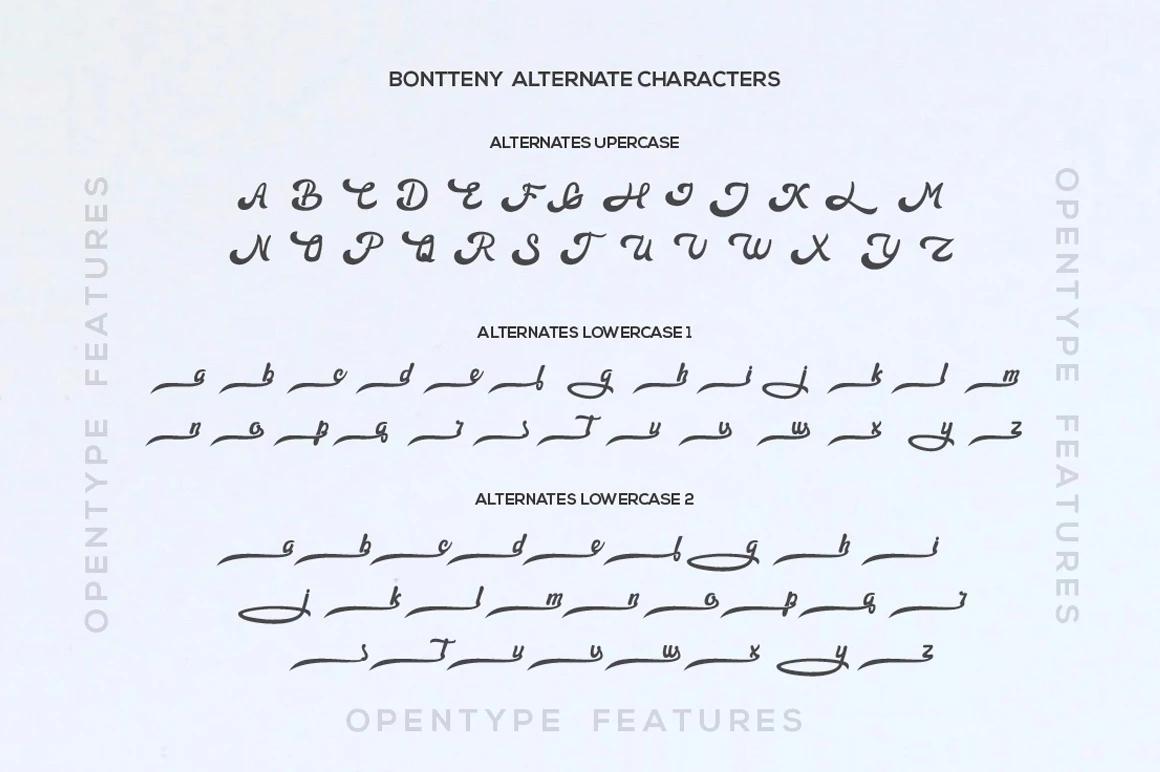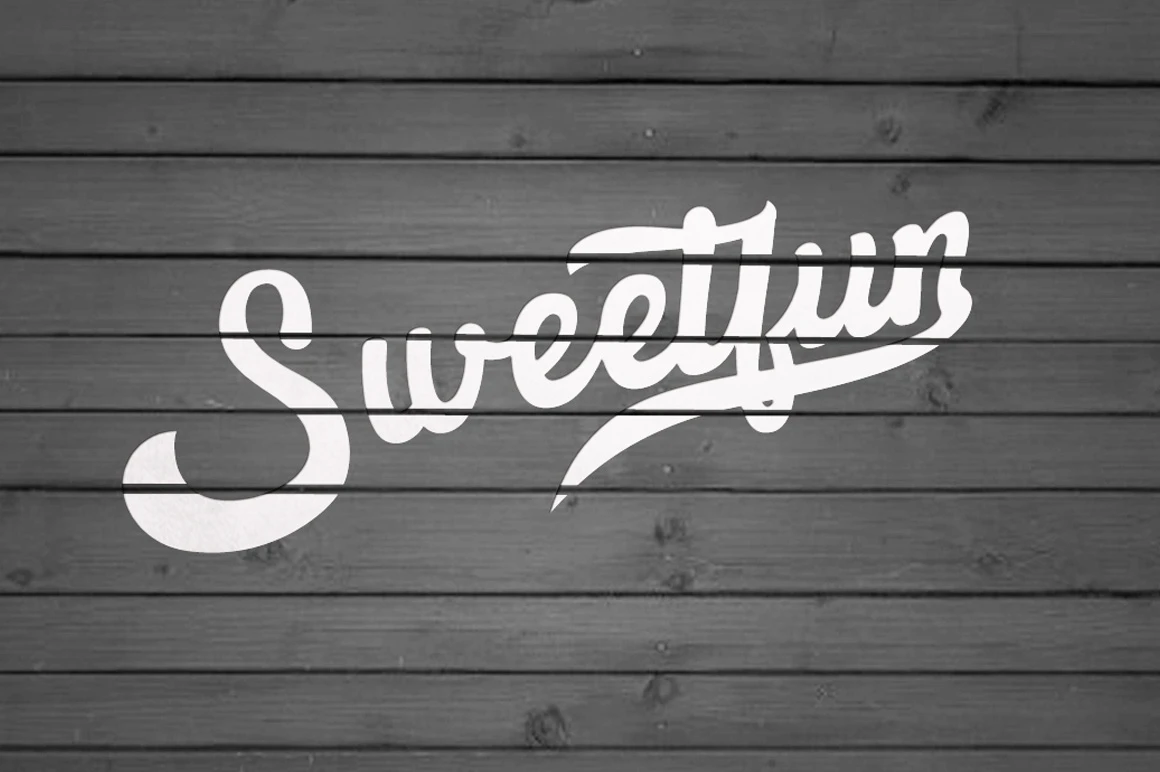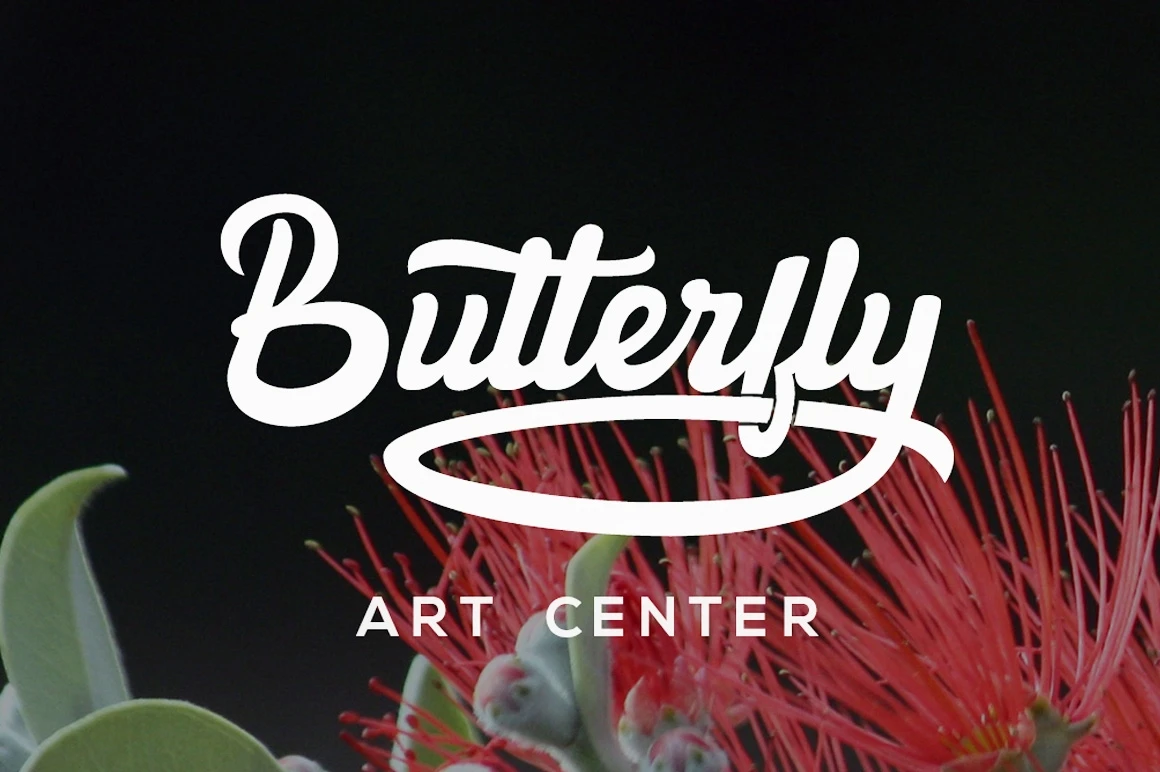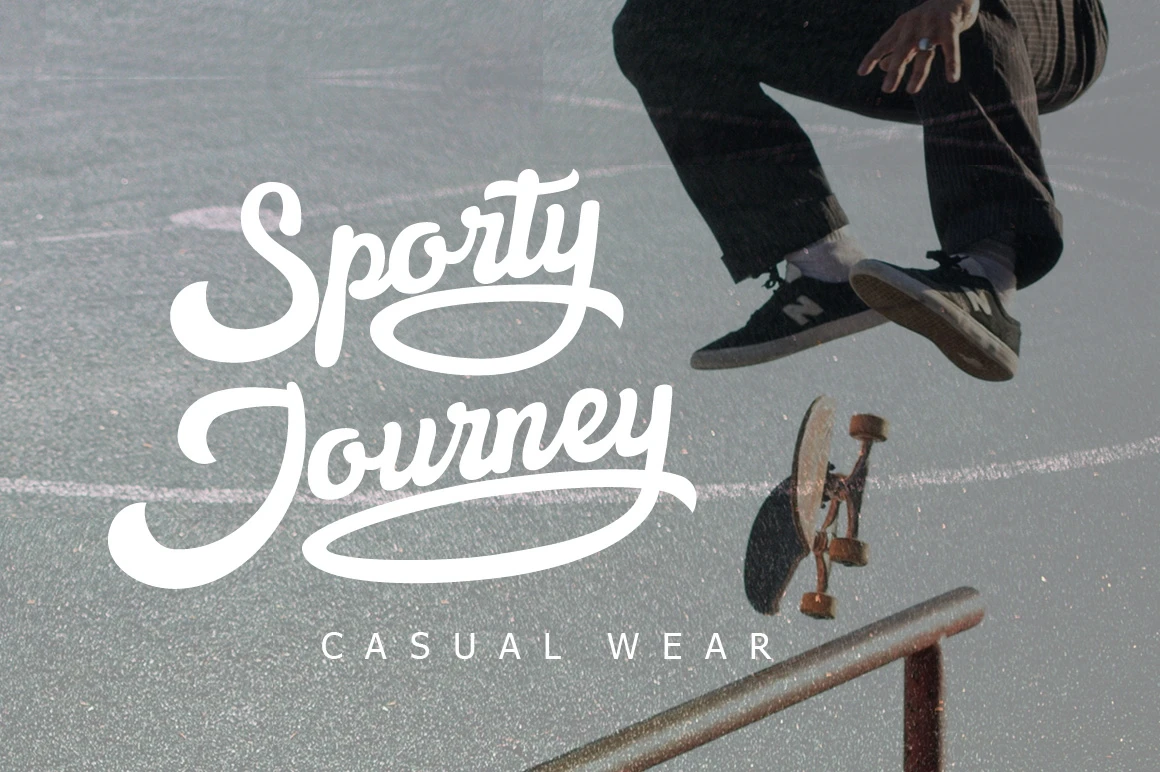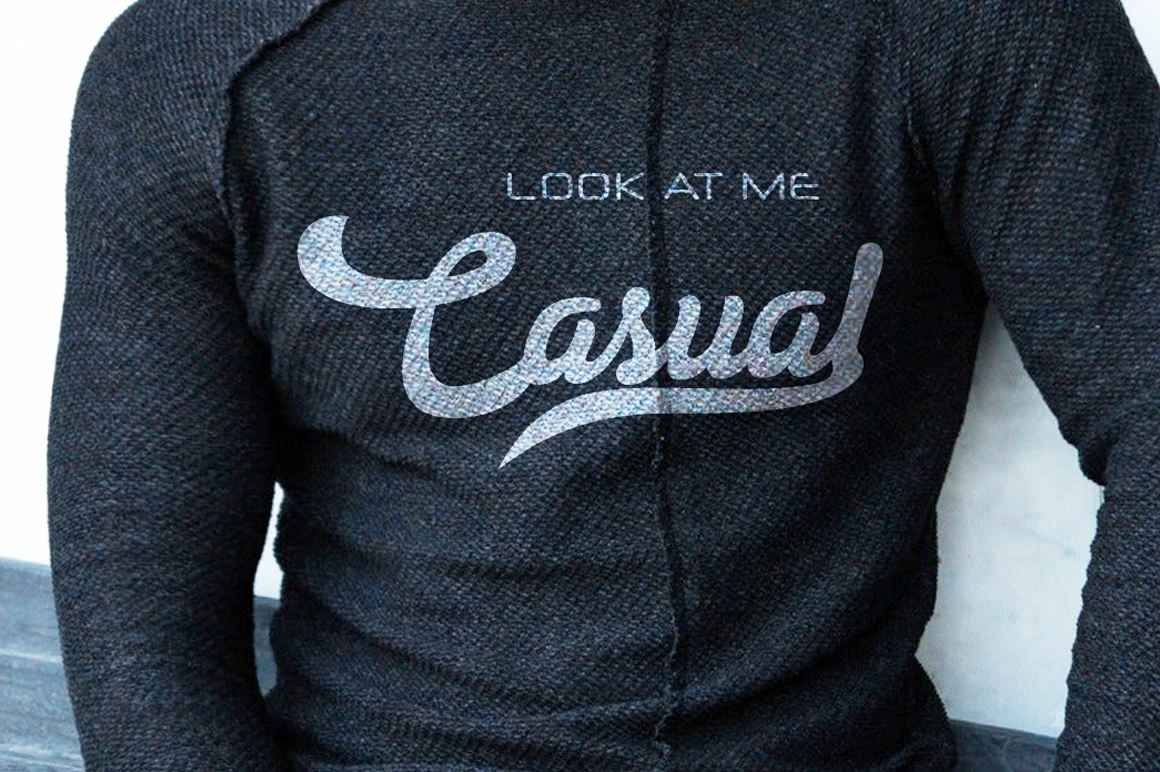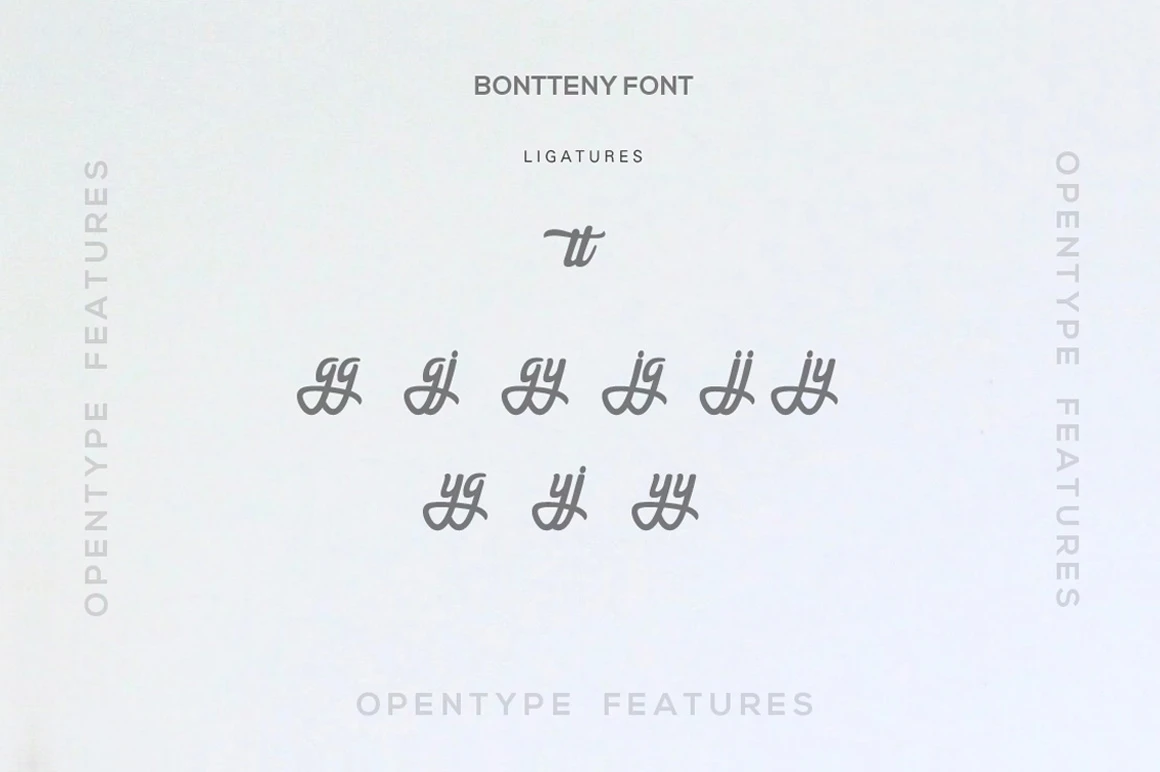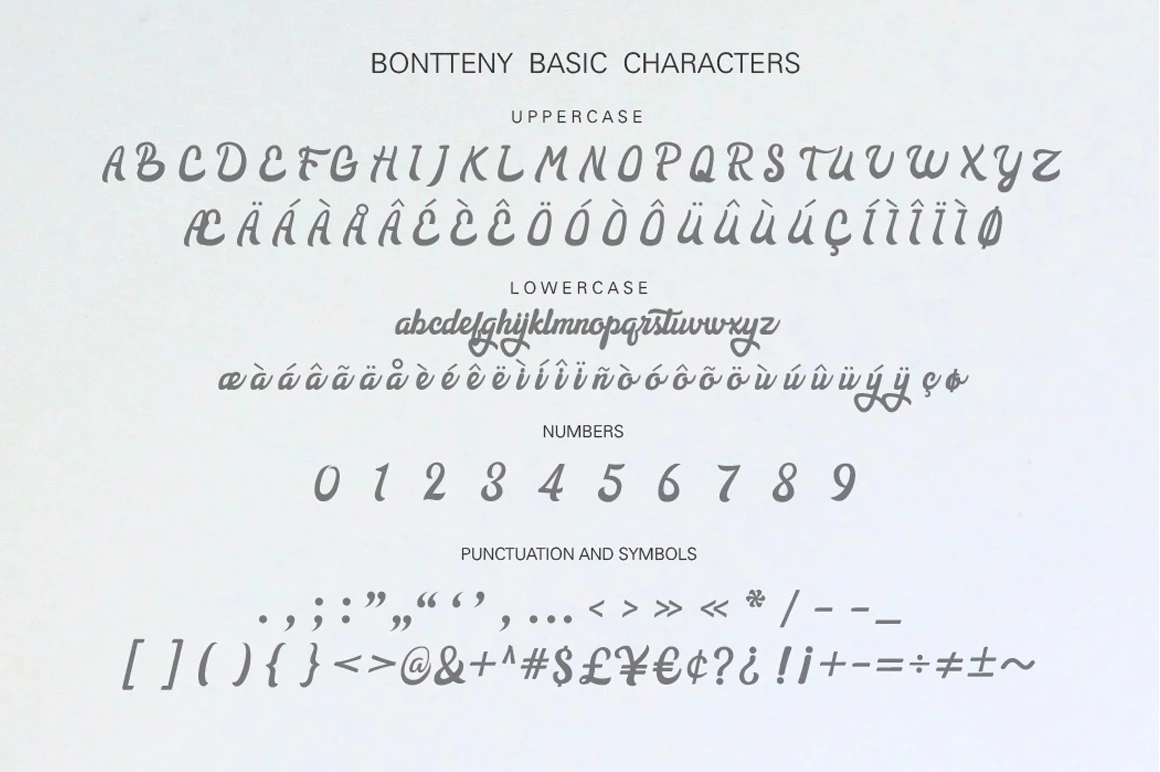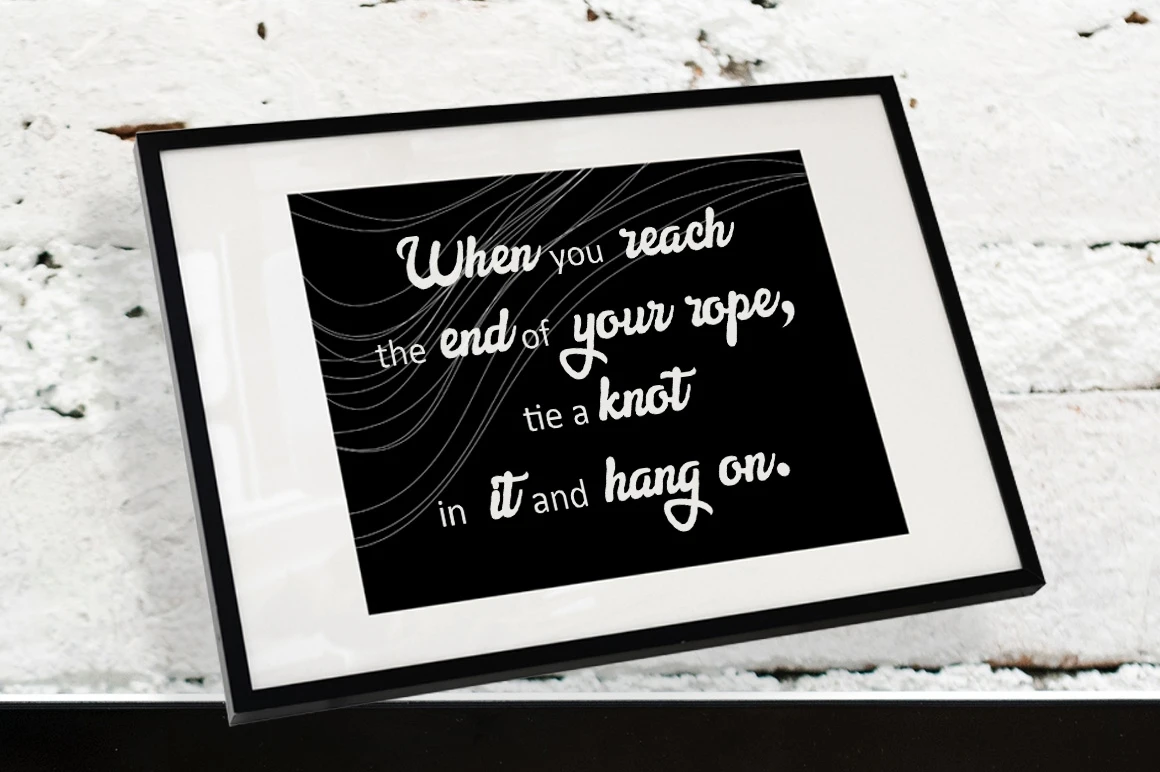
Bontteny is a bold script font. It was designed as a display typeface and a touch of ornament makes this font look stylist. Bontteny designed with alternates in some characters that allows you to mix and match pairs of letters to fit your design.
Bontteny is an excellent choice for logotypes, vintage design ,t-shirt, labels,posters, magazines and many more.
Features :
- Uppercase A-Z
- Lowercase a-z
- Numbers 0-9
- Punctuation
- Custom Ligatures
- lowercase alternates
- Uppercase alternates
- Multilingual support